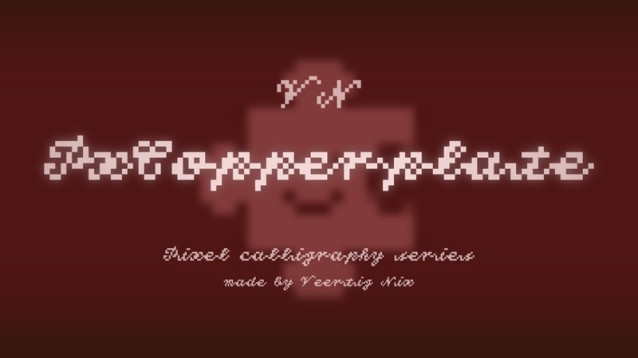
VNPxCopperplate Font
VNPxCopperplate Font is a captivating combination of classic elegance and modern pixelation. Immerse yourself in the charm of VNPxCoperplate, meticulously crafted to exude timeless sophistication, now reimagined with a pixelated touch that adds a unique touch to your designs.